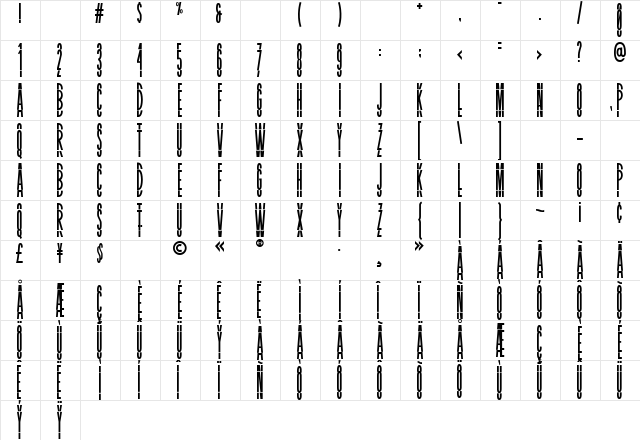
BLASTIMO SANS is a composed and adaptable typeface that performs quietly and consistently across a wide range of design contexts.
Pro Tip: Use BLASTIMO SANS in both headline and body roles to test its range before committing to a single application.